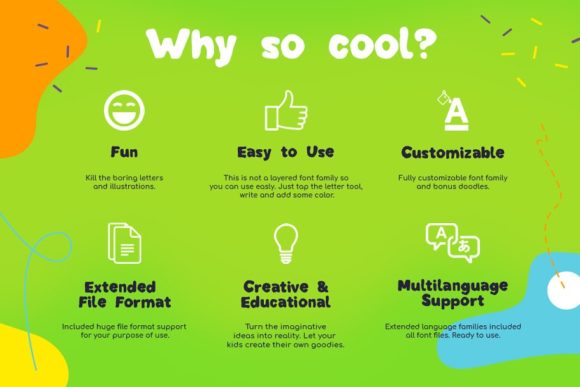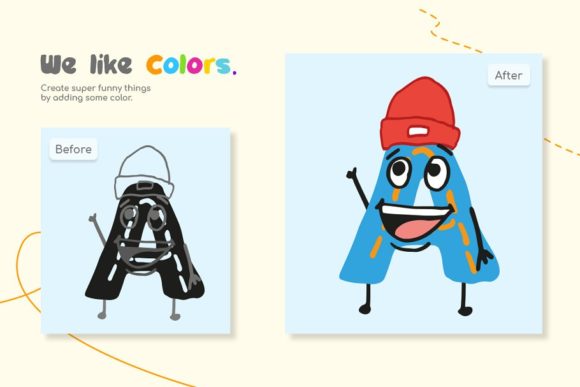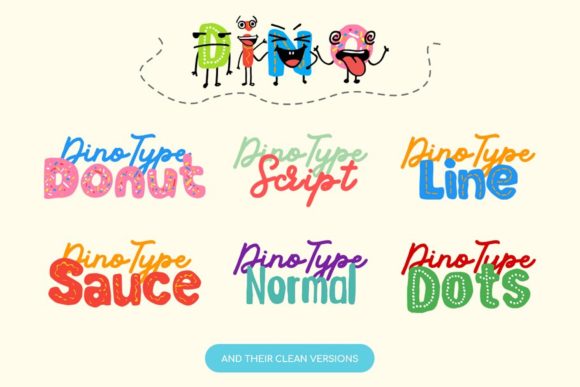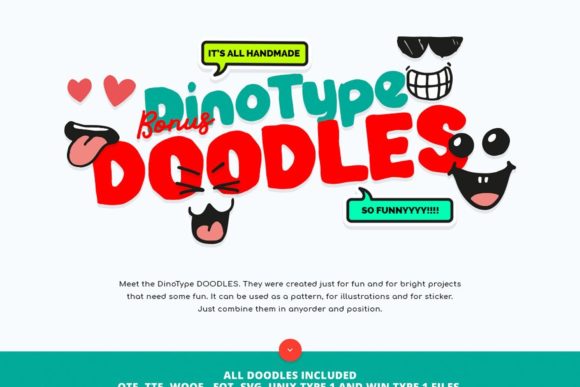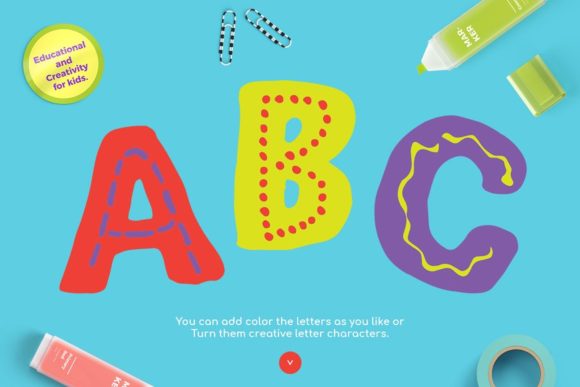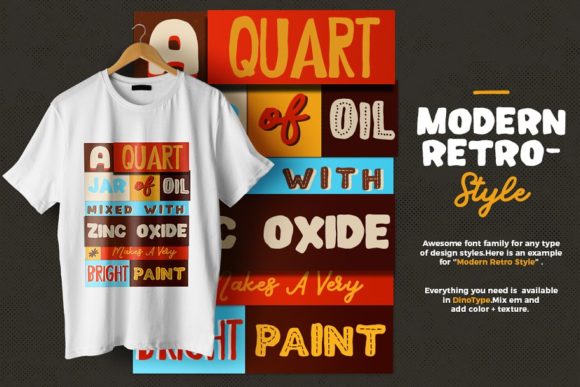
Dino Font: The Perfect Choice for Fun and Playful Designs
Are you looking for a font that can add a touch of playfulness and authenticity to your designs? Look no further than the Dino Font! This cute and colorful display font is perfect for any children activity or school project. With its chunky lettered design, it’s sure to make your designs come alive.
What is Dino Font?
Dino Font is a unique and fun display font that is designed to bring a sense of playfulness and excitement to your designs. Its bold and chunky lettering makes it perfect for use in children’s books, school projects, and any other design project that requires a fun and youthful touch.
Key Features of Dino Font
- Cute and Colorful Design: The Dino Font features a cute and colorful design that is sure to capture the attention of your audience.
- Chunky Lettering: The font’s chunky lettering makes it perfect for use in designs that require a bold and playful touch.
- Playful and Authentic: The Dino Font embodies playfulness and authenticity, making it perfect for use in children’s activities and school projects.
- Easy to Read: Despite its bold and chunky design, the Dino Font is easy to read, making it perfect for use in a variety of design projects.
Uses of Dino Font
The Dino Font is a versatile font that can be used in a variety of design projects, including:
- Children’s Books: The font’s playful and youthful design makes it perfect for use in children’s books.
- School Projects: The Dino Font is perfect for use in school projects, such as posters, presentations, and reports.
- Party Invitations: The font’s fun and playful design makes it perfect for use in party invitations and other celebratory materials.
- Crafting and DIY Projects: The Dino Font is perfect for use in crafting and DIY projects, such as signs, banners, and other decorative materials.
Benefits of Using Dino Font
There are many benefits to using the Dino Font in your designs, including:
- Adds a Touch of Playfulness: The font’s playful design adds a touch of fun and excitement to your designs.
- Perfect for Children’s Designs: The Dino Font is perfect for use in designs for children, such as children’s books, party invitations, and school projects.
- Easily Readable: The font’s bold and chunky design makes it easily readable, even at small sizes.
- Versatile: The Dino Font can be used in a variety of design projects, from children’s books to party invitations.
How to Use Dino Font
Here are a few tips for using the Dino Font:
- Use it for Headings: The Dino Font is perfect for use in headings and titles, where its bold and chunky design can really make an impact.
- Experiment with Colors: The font’s colorful design makes it perfect for use with a variety of colors and patterns.
- Pair it with Other Fonts: The Dino Font can be paired with other fonts to create a unique and interesting design.
The Dino Font is a fun and playful display font that is perfect for any children activity or school project. Its bold and chunky lettering makes it easily readable, and its cute and colorful design adds a touch of playfulness to any design. Whether you’re a designer, crafter, or teacher, the Dino Font is a great choice for your next design project.